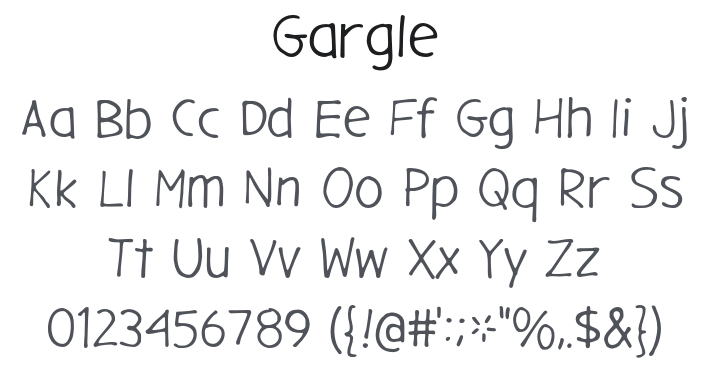
Gargle Font Family
About Gargle
Gargle is a light, hand-drawn comic dialog typeface styled after the informal felt-tip lettering found in newspaper comic strips. It comes in an impressive 12 styles across three widths (condensed, regular, expanded) and two weights with italics — giving real word-balloon flexibility. Beyond comics, it suits fanzines, indie album notes, and hand-drawn signage aesthetics with easy, unpretentious charm.